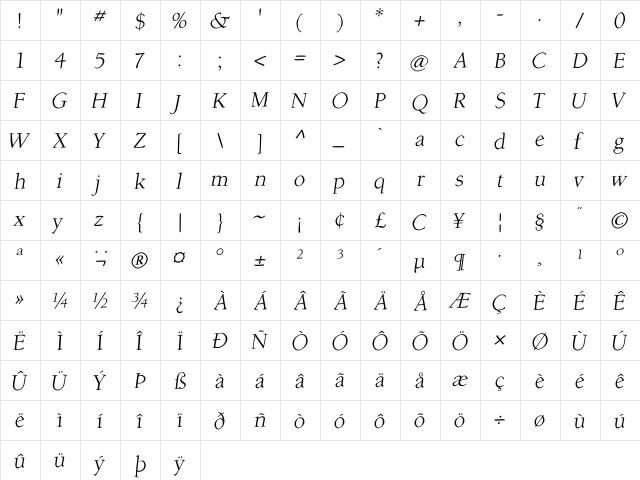
Berolina Light Italic
Design Context for Berolina Typeface
Berolina takes a measured approach to typography — its balanced proportions and neutral character make it a reliable workhorse for both digital and print work. The dynamic lean of this cut emphasises speed and emphasis in any layout. Its slender proportions lend an understated elegance to any composition.